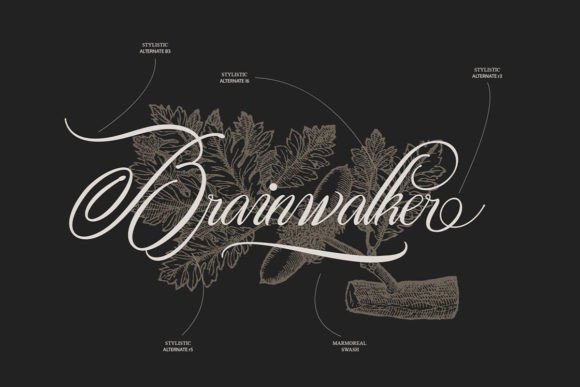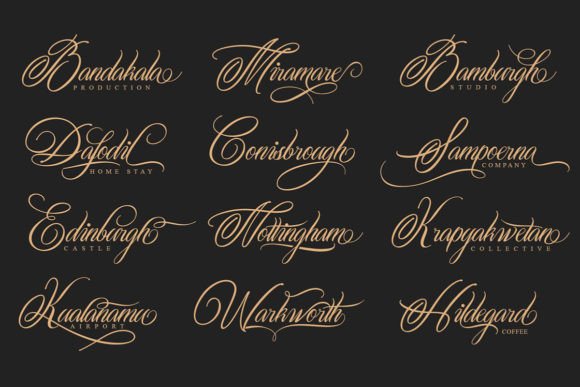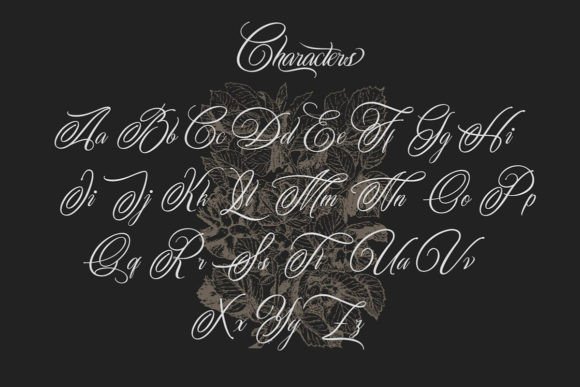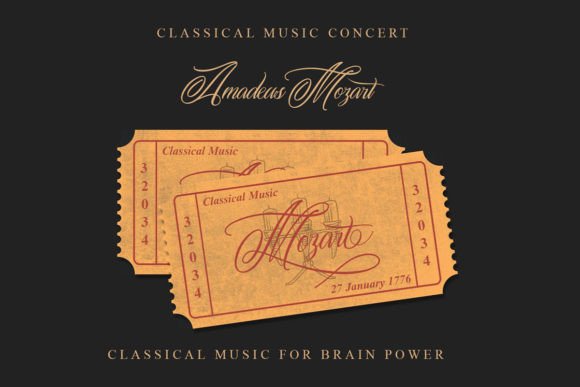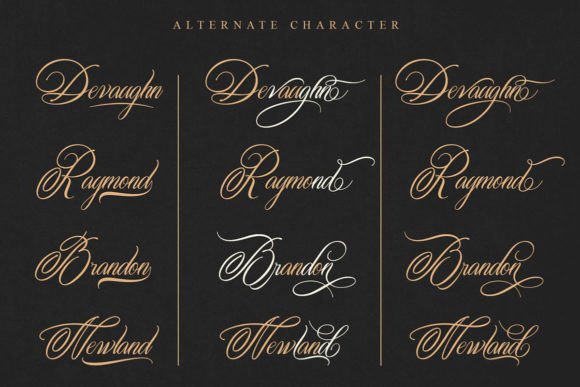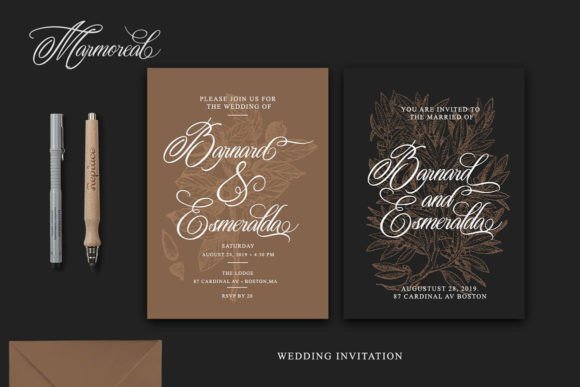
Introduction to Marmoreal Font
Have you ever been rummaging through an antique store, searching for the perfect paper to create a unique invitation for a special event? The sound of old book pages rustling and the scent of aged paper fills the air, and suddenly, you’re transported to a different era. The Marmoreal Font is that perfect find, a vintage script font that exudes a timeless elegance.
This elegant font features delicate and flowing strokes that evoke a sense of nostalgia, making it a valuable design resource for creatives working on high-quality projects. With its refined and sophisticated design, the Marmoreal Font is perfect for adding a touch of vintage charm to invitations, packaging, and editorial layouts. Whether you’re looking for a free download or a design element with a transparent background, this font is sure to elevate your creative project.
Key Features of Marmoreal Font
- High-quality, elegant design ideal for creative projects requiring sophistication and style.
- Features a unique, hand-crafted aesthetic that sets it apart from other fonts in its category.
- Perfect for use in a variety of creative projects, including branding, packaging, and editorial design.
Honest Review: Marmoreal Font
I recently stumbled upon the Marmoreal Font, a high-quality design resource that’s perfect for any creative project. I was excited to dive in and see what it had to offer.
- ✨ The font is incredibly versatile and can be used for a wide range of designs, from elegant headings to clean body text.
- ⚠️ The font may not be suitable for very small or large text sizes, as it can become distorted.
- ⚠️ Some users may find the font’s thin lines and delicate design challenging to read.
Overall, I’m really impressed with the Marmoreal Font. It’s a great addition to any designer’s toolkit and can elevate even the most basic designs to the next level. Whether you’re working on a personal project or a commercial design, this font is definitely worth checking out.
The Marmoreal Font is a versatile design resource that can be used in a variety of creative projects, including logos, business cards, and brochures. It’s also a great choice for creating high-quality typography for websites and social media graphics. With its elegant and sophisticated style, the Marmoreal Font is perfect for designers looking to add a touch of luxury to their designs.